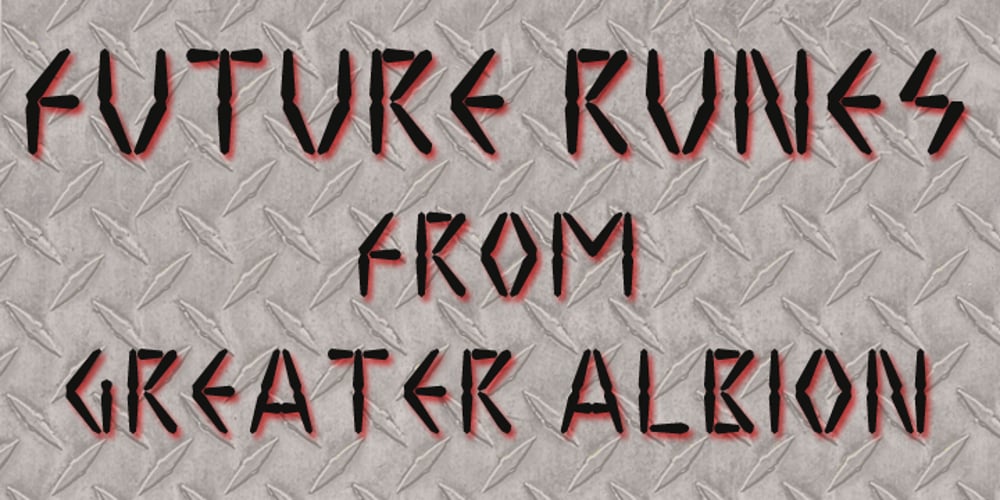
Future Runes Font Family was designed by Paul James Lloyd and published by Greater Albion Typefounders. Future Runes contains 1 styles and family package options. Future Runes is another in our occasional series of ‘retro-science-fiction’ based fonts, along with Albia Nova and Cullion. There are design niches for which this piece of fun will be just ideal…Enjoy!